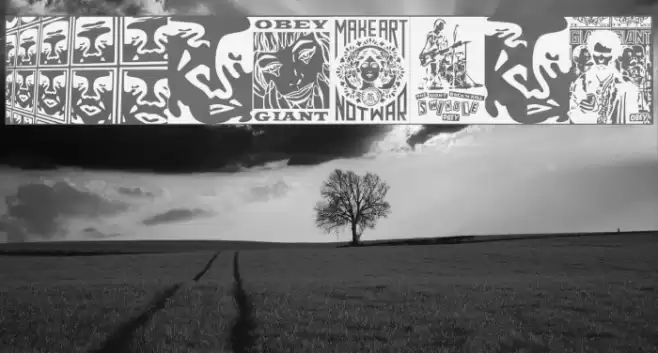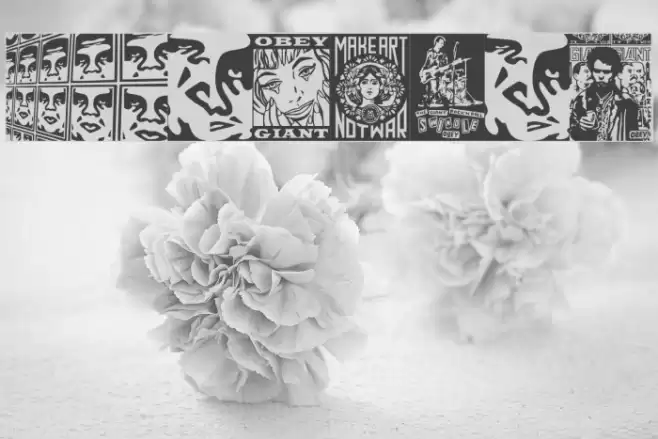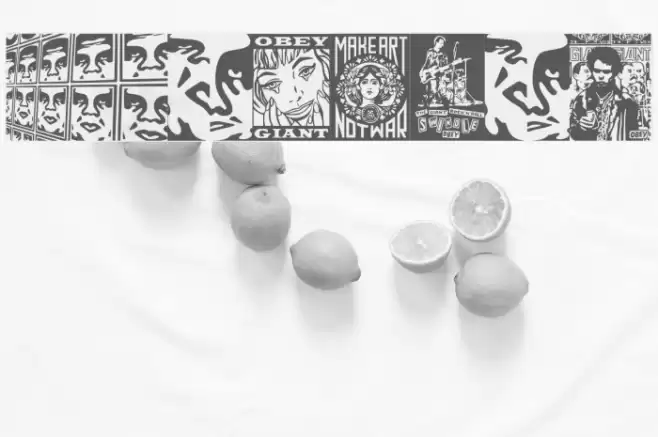
ObeyFaves Font
ObeyFaves Description
A decorative display font composed of iconic black-and-white graphic illustrations, each character represented by a unique artwork or collage, reflecting street art and pop culture influences.
A display font using graphic illustrations for each character from Uncategorized fonts.
- Proposed Projects: Posters, album covers, streetwear branding, event flyers, art projects, zines.
- Overall Style: Decorative, Urban, Pop Art
- Use Case: Headlines, Logos, Artistic projects